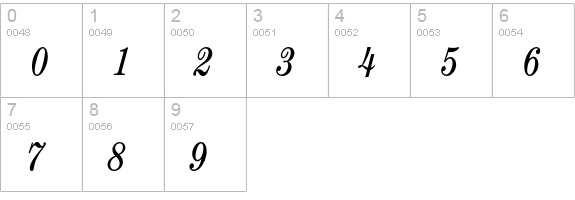
CenturyEF-BookCondItalic Font Details
CenturyEF-BookCondItalic font is a beautiful and elegant typeface that adds a touch of sophistication to any project. With its slender and slanted design, this italic font exudes a sense of style and refinement. Perfect for adding emphasis or creating a unique look, CenturyEF-BookCondItalic font is versatile and can be used in a variety of design applications. The best part? CenturyEF-BookCondItalic font is completely free to download at FontsMarket.com. This means you can easily access this stunning typeface without any cost, making it a valuable addition to your font library. Don't miss out on the opportunity to enhance your designs with the timeless charm of CenturyEF-BookCondItalic font, available for free download now!